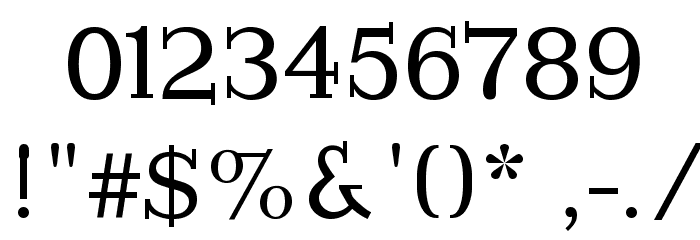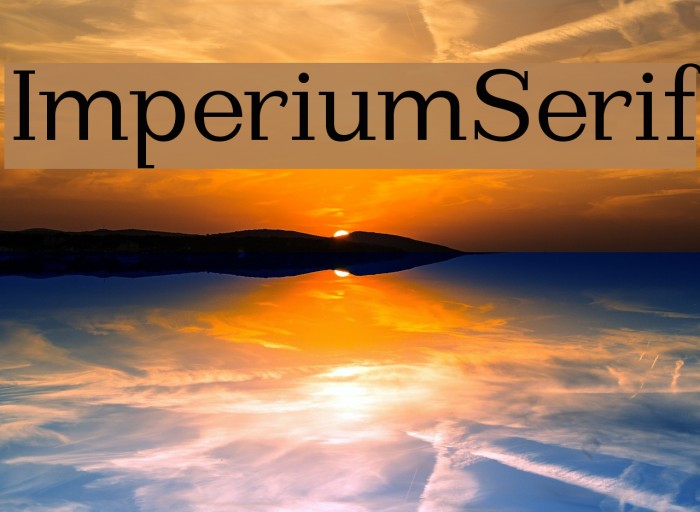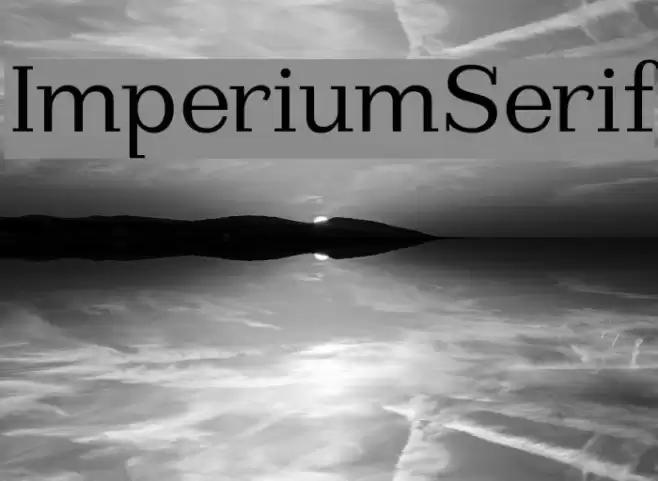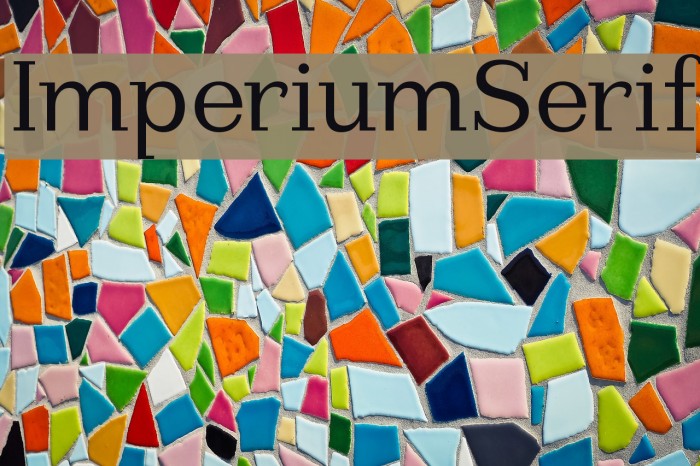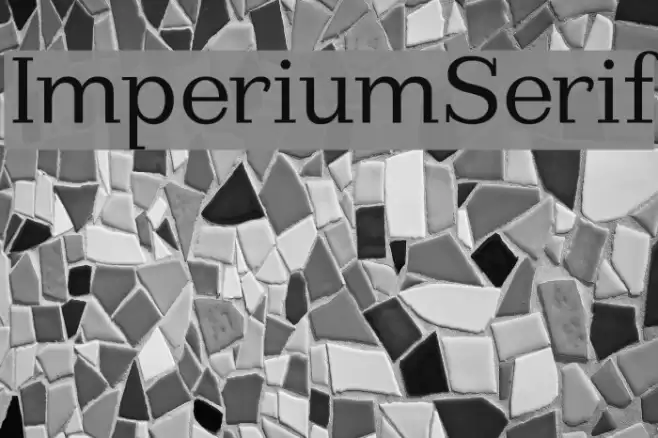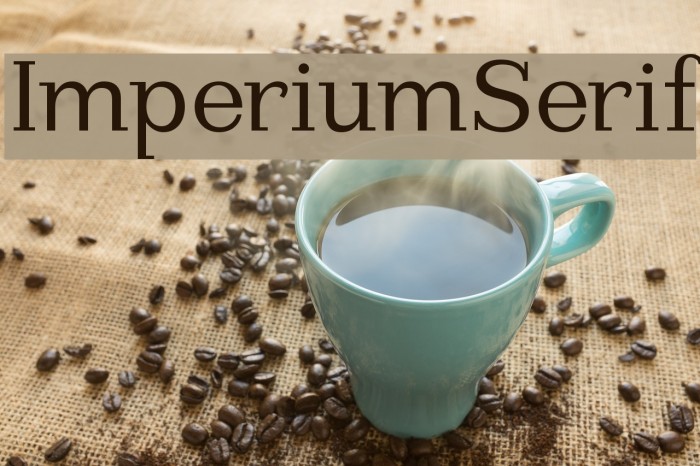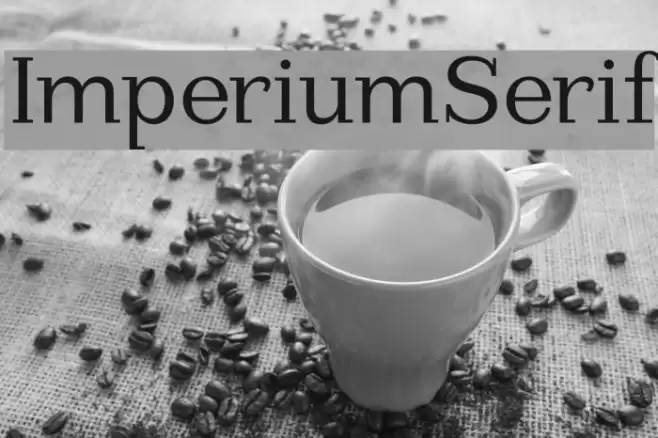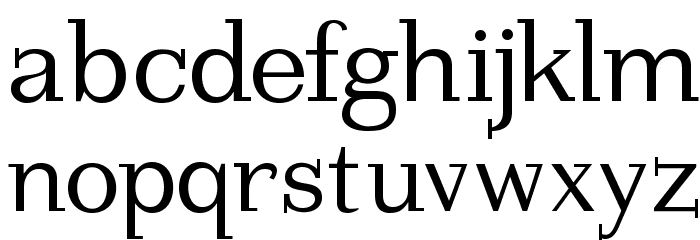
ImperiumSerif Font
ImperiumSerif Description
This serif typeface exudes a classic and timeless elegance, characterized by its sharp serifs and balanced proportions. The uppercase letters are bold and commanding, while the lowercase letters maintain a refined and approachable appearance. The numerals are clear and distinct, ensuring readability. Special characters are well-integrated, maintaining the overall aesthetic. The font's design is suitable for both digital and print media, offering versatility across various applications. Its clean lines and structured form make it ideal for professional and formal settings, while still retaining a sense of sophistication.
A classic serif typeface with sharp serifs and balanced proportions, ideal for formal and professional use from Serif fonts.
• Proposed Projects: Perfect for book covers, editorial design, corporate branding, and formal invitations.